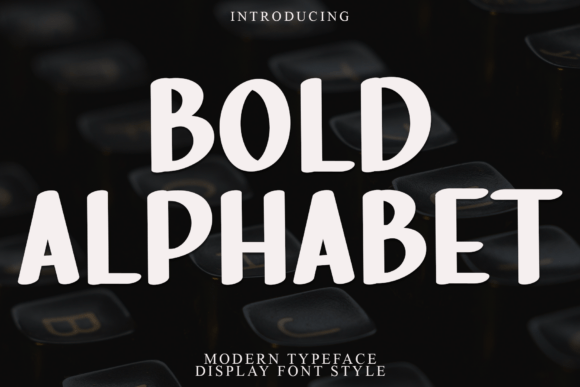
Designing with Attitude: The Power of the Bold Alphabet Font
Have you ever stared at a blank page, desperate for inspiration to strike? For designers, those moments can be a challenge, but also a chance to think outside the box and try something new. It’s in these moments that the perfect font can make all the difference – and that’s where the Bold Alphabet Font comes in.
This striking typeface is designed to grab attention, with thick, heavy letters that command the spotlight. Perfect for headlines, posters, or any design that needs to make a statement, the Bold Alphabet Font is a valuable addition to any designer’s toolkit.
With its clear, easy-to-read letters and modern feel, the Bold Alphabet Font is a versatile choice that’s sure to elevate any design project. Whether you’re a seasoned pro or just starting out, this font is a great way to add some attitude to your work and make a lasting impression.
Bold Alphabet Font Key Features
- Unique Character Set: Includes a comprehensive set of characters, including uppercase and lowercase letters, numerals, punctuation marks, and special characters, making it suitable for a wide range of applications.
- Weight and Style Options: Offers a range of weights, from light to extra bold, allowing for flexibility in design and typography.
- Kerning and Ligatures: Features advanced kerning and ligature capabilities, ensuring precise spacing and letter connections for a polished and professional appearance.
- Unicode Compatibility: Supports Unicode characters, enabling seamless integration with languages that use non-Latin scripts.
Designer Review: Bold Alphabet Font
Overall, I think the Bold Alphabet Font has some great qualities, but also some limitations that might make it not suitable for all projects. Here’s my honest review.
- The font is indeed bold and eye-catching, perfect for headings and titles.
- The letterforms are well-designed and visually appealing.
- The font supports a wide range of languages, making it a great choice for international projects.
- The font is not very readable at small sizes, which might be a problem for body text.
- The font lacks flexibility and does not come in different weights, making it hard to use in situations where you need a lighter or bolder version.
- The font does not have any ligatures or contextual features, which might make it harder to use in certain design scenarios.
While the Bold Alphabet Font has some great qualities, its limitations might make it not suitable for all projects. It’s a great choice for headings and titles, but for body text or complex design scenarios, you might want to consider other options.
Use the Bold Alphabet Font to add a touch of elegance to your designs.
Pair it with other bold fonts for a striking contrast.
Use the Bold Alphabet Font for:
Headings and titles.
Product names and logos.
Event titles and descriptions.
Alternatives to Bold Alphabet Font for Designers
Playfair Display is a luxurious, high-end serif font ideal for headings, titles, and luxury branding. It features elegant swashes and refined letterforms, making it perfect for high-end fashion, jewelry, or wine labels. Compared to Bold Alphabet Font, Playfair Display is more ornate and sophisticated, adding a touch of elegance to any design.
Great Vibes is a modern, elegant script font suitable for creative, artistic, or emotive projects. It features flowing connections and subtle flair, making it ideal for invitations, event branding, or social media promotions. Unlike Bold Alphabet Font, Great Vibes is more cursive and expressive, conveying a sense of movement and energy.